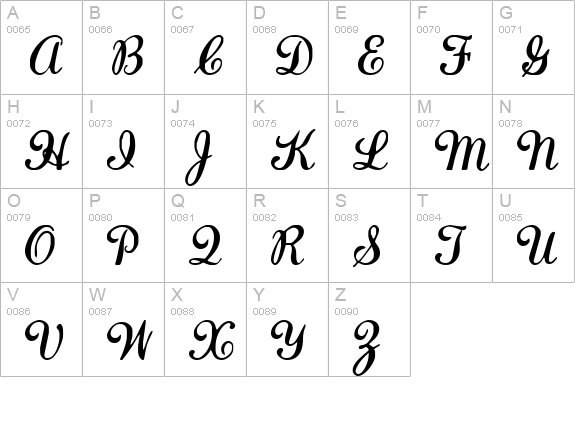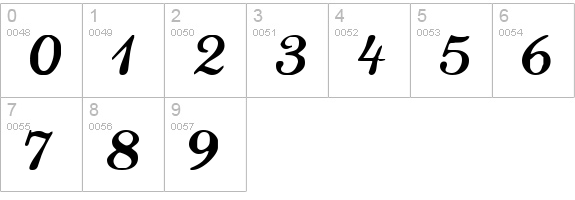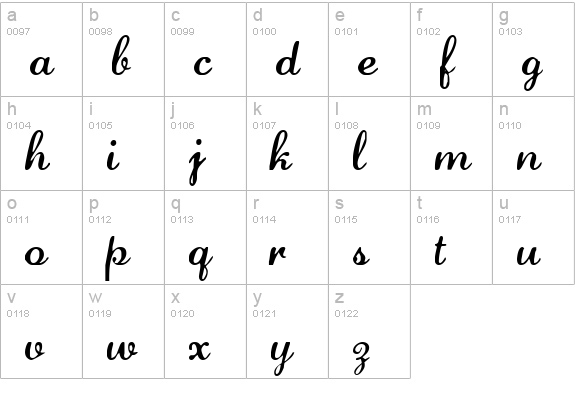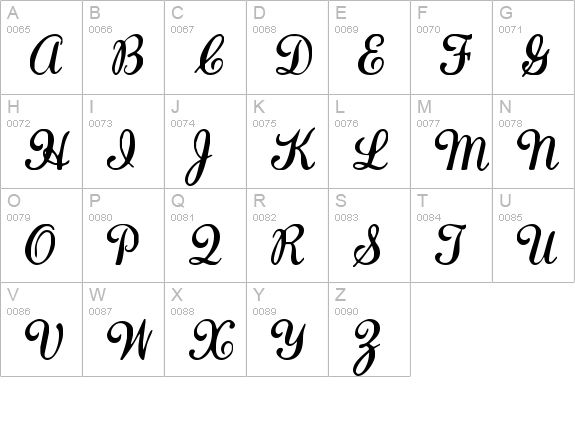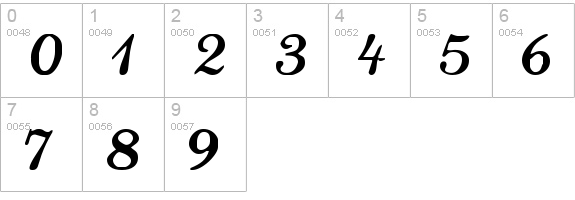
Lauren Script Font Details
Lauren Script is a stunning and elegant font that exudes grace and sophistication. With its delicate curves and flowing lines, this script font is perfect for adding a touch of timeless beauty to any design project. Designed with precision and attention to detail, Lauren Script captures the essence of classic calligraphy. Each letter is meticulously crafted to create a harmonious flow that is both visually pleasing and effortlessly stylish. But what sets Lauren Script apart is that it is not only beautiful, but also free. Yes, you read that right – this exquisite font is freely available to download at FontsMarket.com. Now you can add a touch of elegance to your designs without breaking the bank. Whether you're designing wedding invitations, branding materials, or any other project that calls for a touch of sophistication, Lauren Script is the perfect choice. Its versatility allows it to be used in a wide range of design applications, from digital to print. So why wait? Download Lauren Script today from FontsMarket.com and elevate your designs with its timeless beauty. Let this font be the statement piece that sets your work apart and leaves a lasting impression.